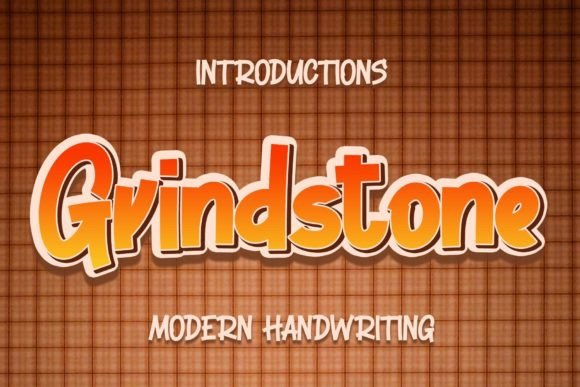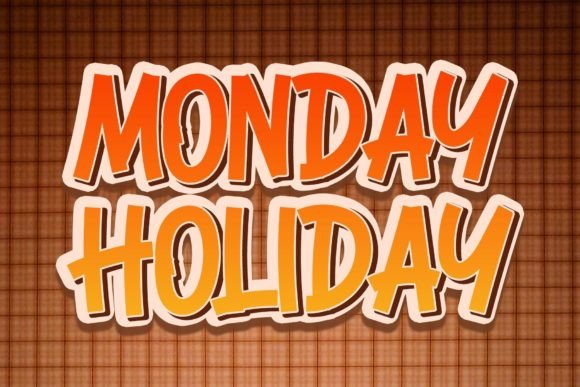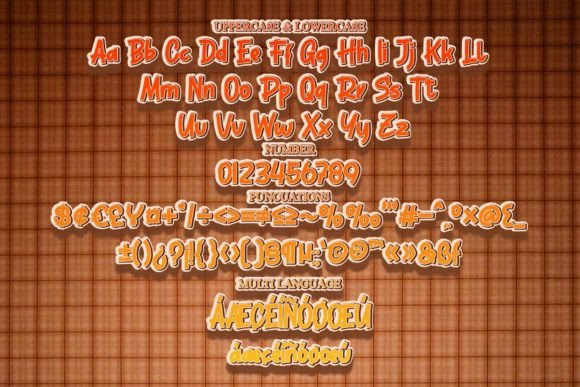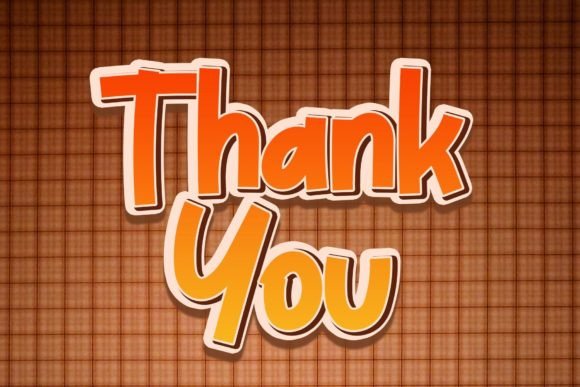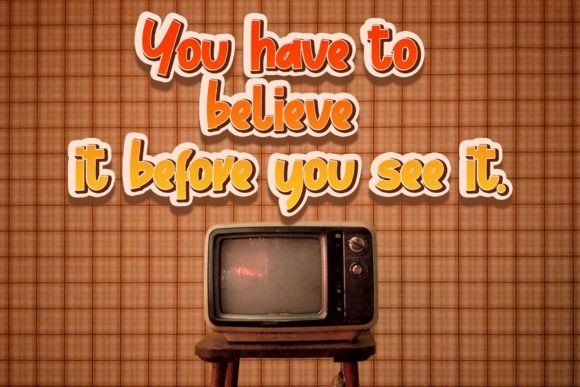
Grindstone Font
About Grindstone Font
“Grindstone” sounds like an elegant handwritten font with a contemporary feel, drawing inspiration from timeless classic calligraphy. Fonts with a balance between thin and thick strokes are often versatile and can enhance the visual appeal of various design projects.
The description suggests that “Grindstone” was specifically crafted to enhance the beauty of your projects. Fonts that successfully blend classic calligraphic elements with a contemporary touch can be impactful and suitable for a range of design applications.
Consider incorporating “Grindstone” into your creative projects, whether you’re working on logos, invitations, or other design elements. Explore how this elegant handwritten font can contribute to the overall aesthetic and bring a touch of sophistication to your work.